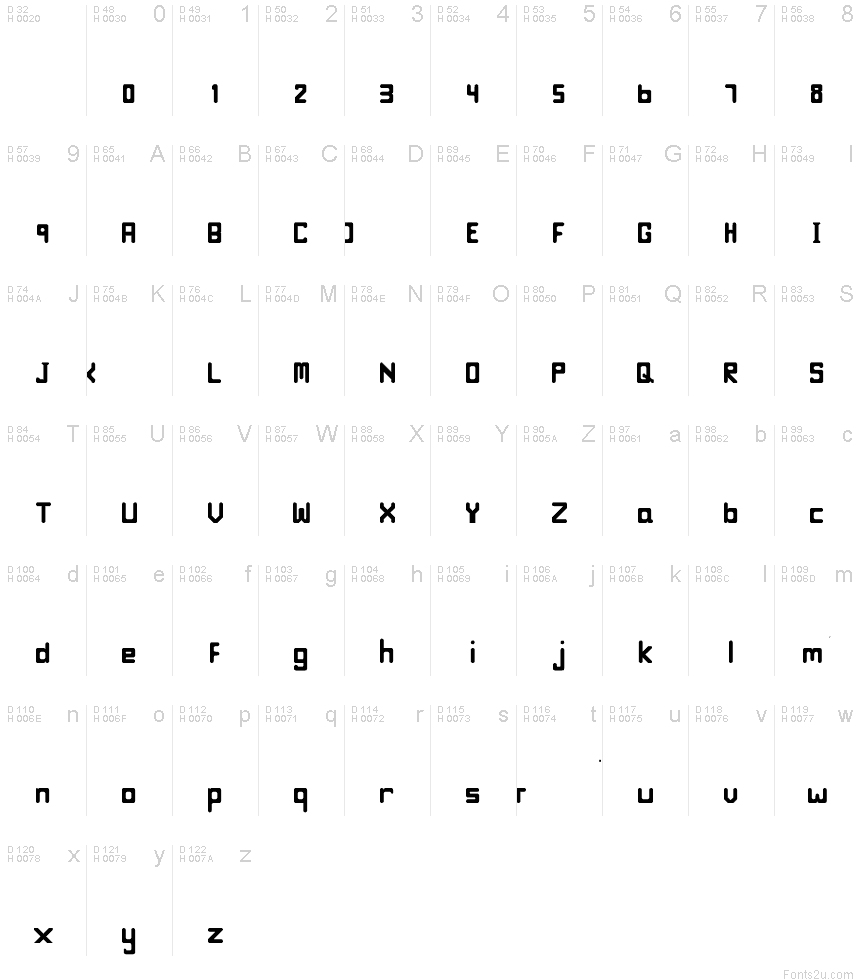
Trixie by trixmix of FSI FontShop International GmbH is a free rounded monospaced sans serif with a mechanical build. The letters use even strokes, blunt curves, and softly rounded ends. The spacing feels measured and deliberate.
The terminal-like style suits game interfaces and technology branding, especially projects with a warmer digital theme. That neat construction also fits album artwork and event posters rooted in electronic music. Rounded stroke endings soften the fixed grid, linking the lettering to friendly software graphics rather than severe industrial systems.